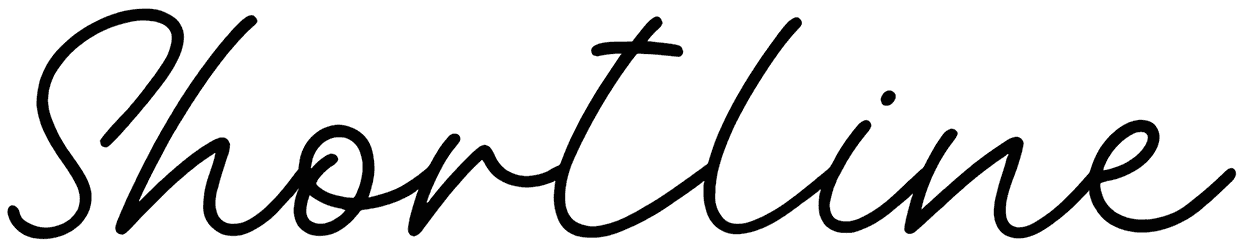
Shortline Font
Shortline works well, like many others; it is a bit challenging to read, but it can be understood. This handwritten font is bold enough and introduces a new layer to the original form of handwritten fonts.
There are subtle strokes in this teacher font that shake the letters to show that someone wrote them by hand. For this reason, they add a pure personal touch to your writing, which conveys a good sense of familiarity with invitations, gifts, and greeting cards.